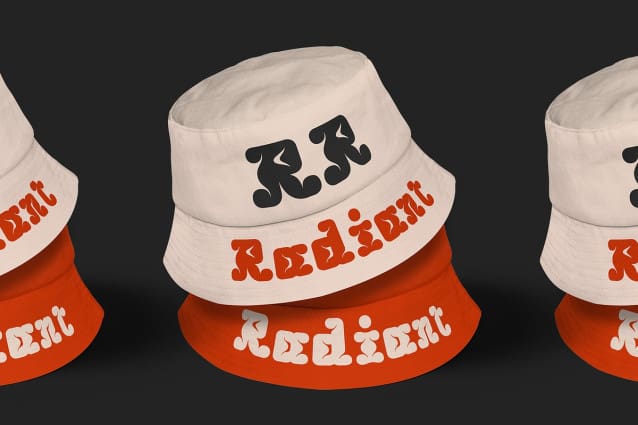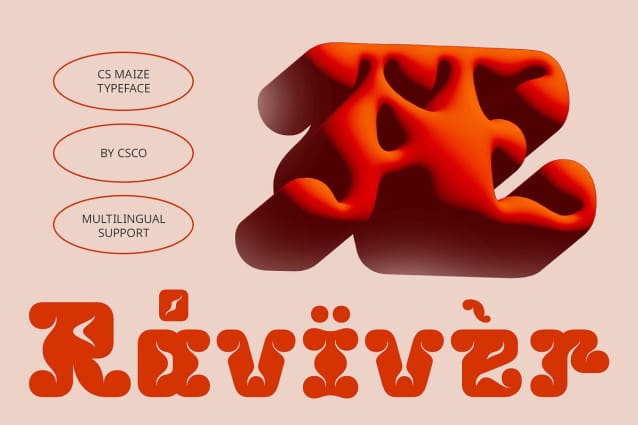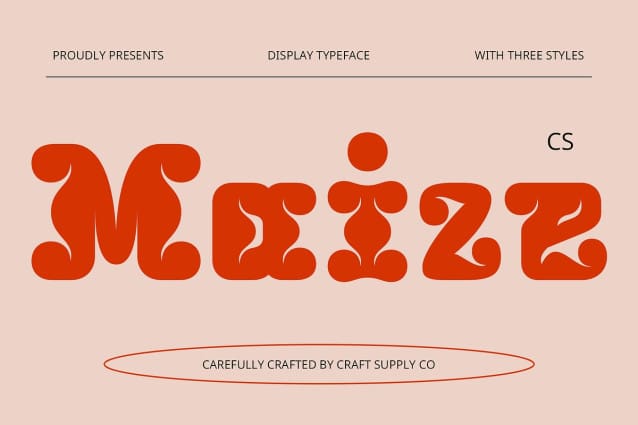
CS Maize Font
CS Maize Font – Bold Font is a striking display typeface designed to command attention with its robust and confident character. Featuring unique letterforms with thick, powerful strokes, this font is perfect for headlines, key design elements, and any project that demands a high visual impact. Whether used in branding, advertising, or creative graphics, CS Maize ensures that your message is delivered with strength and clarity, making it the ideal choice for designs that need to stand out.
Thick Strokes for Strong Visual Presence The bold nature of CS Maize – Bold Font is evident in its thick, substantial strokes that instantly draw the eye. The strong letterforms are designed to make an impression, conveying confidence and boldness without compromise. This high-contrast style ensures readability even in large sizes, while still maintaining a sharp, commanding presence. Whether displayed on posters, banners, or billboards, the bold nature of CS Maize guarantees your message will not go unnoticed.
Expressive and Unforgettable Appeal CS Maize is more than just a bold font—it’s a font with personality. The unique, expressive letterforms give the typeface a creative edge, making it perfect for projects that aim to convey a strong, unforgettable presence.